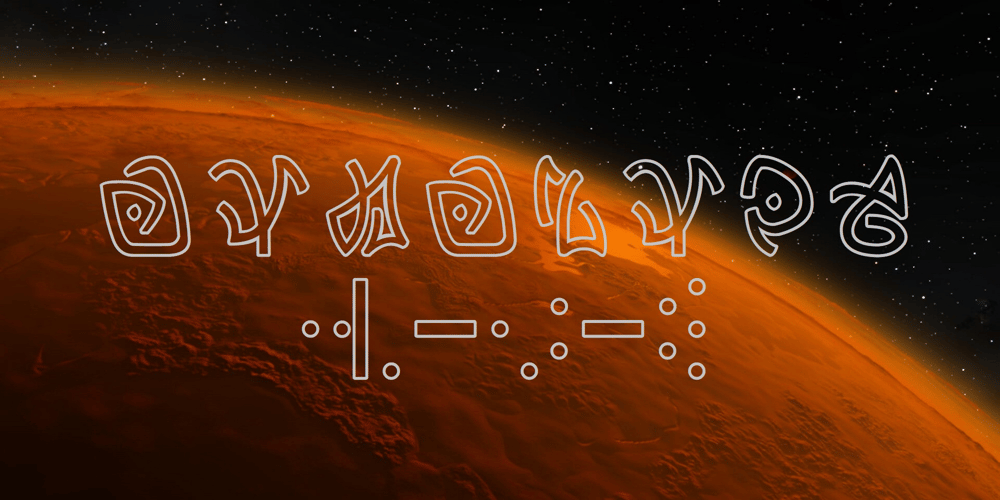
Ongunkan Atlantis Hollow
Ongunkan Atlantis Hollow font
Ongunkan Atlantis Hollow Font Family was designed by Osman Nuri ALKAN and published by Runic World Tamgacı. Ongunkan Atlantis Hollow contains 2 styles and family package options. Atlantis: The Lost Empire is a 2001 I made the alphabet prepared for Atlantis Lost Empire, the first feature-length animated movie of Walt Disney in 2000 years, in 2 versions in accordance with the original. It is suitable for today’s use.